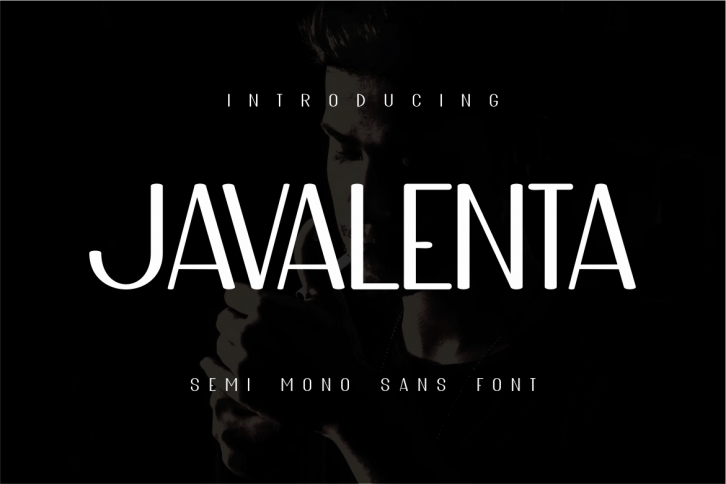
is a sans serif font that was developed to be a display font that is currently booming.
This font is not much different from the appearance of the font in general,
what makes it a little different is the shape which is rounded at the end and there is a thin thickness on certain letters.
combined with a regular display (not so bold) so that it becomes suitable for reading.
This font is for the title of a book or magazine, or a warning font and a composition of words that will be used in a product.